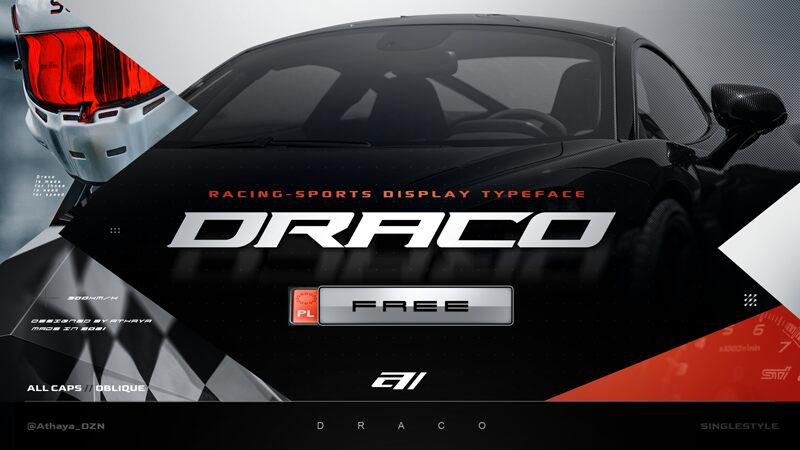
Draco
Draco, a bold, wide display font from designer AthayaDZN, is perfect for any techno-inspired project. With its unique style and modern edge, Draco is sure to make your design stand out. Ideal for logos, labels, posters and more!